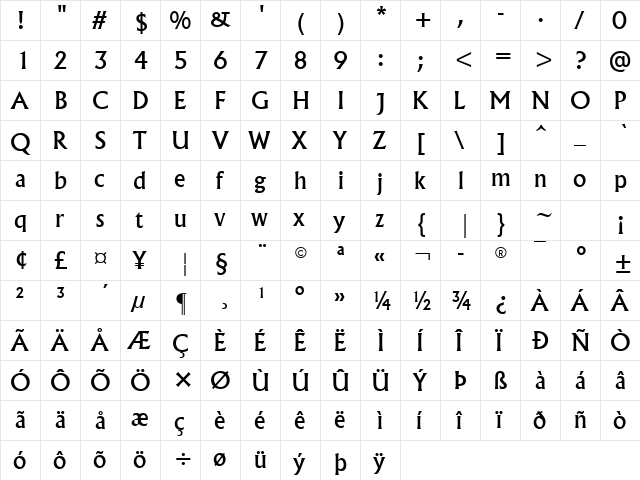
Albertus Medium (W1) Regular
Design Context for Albertus Medium (W1) Typeface
Albertus Medium (W1) offers clean, dependable letterforms without strong stylistic allegiance, making it a practical choice for designers who need flexibility.